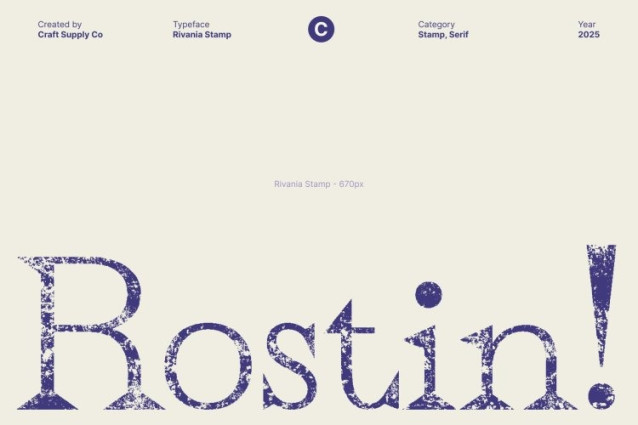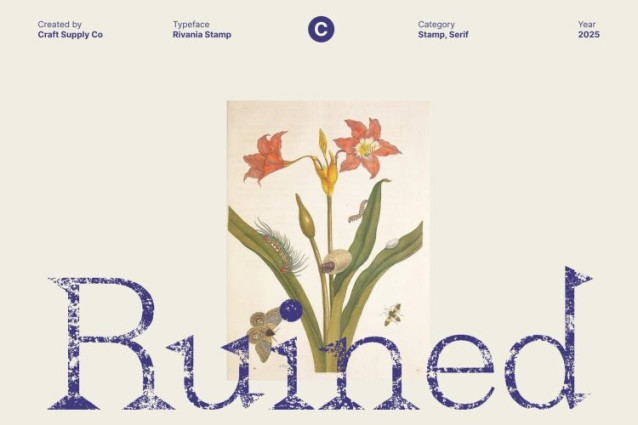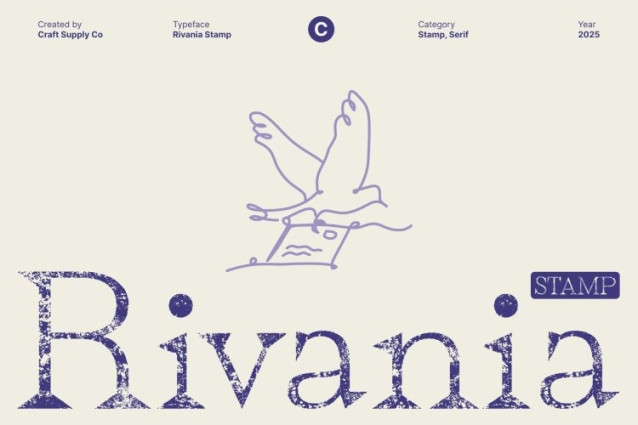
Rivania Stamp Font
Rivania Stamp Font This is an aesthetic serif font that blends classic elegance with the energy of today’s digital style. Designed to be instantly eye-catching, it reflects the visual language of modern online culture making it perfect for content creators, lifestyle brands, and anyone looking to elevate their visual identity.
Stylish Serif Forms for Social Media and Lifestyle Branding
Crafted with smooth curves and expressive shapes, thrives in visually driven spaces like TikTok, Instagram, and digital ads. Its aesthetic appeal makes it ideal for posts, quotes, product promos, and brand identities that need to feel stylish and approachable.
Stamp Texture for a Unique and Emotional Touch
Enhancing its trendy serif form, features a stamped texture that adds depth, warmth, and expressive character. This handcrafted effect transforms the clean serif into something more artistic and memorable. Each letter carries a subtle irregularity that enriches the overall aesthetic, giving your design a touch of personality and individuality.
Perfect for Visual-Driven Projects and Modern Branding
Whether you’re designing for lifestyle brands, fashion labels, personal branding, posters, or digital campaigns, brings out a unique blend of charm and creativity. Its combination of classic typography, modern trend cues, and textured detailing makes it versatile yet distinctive ideal for projects that want to feel authentic, expressive, and beautifully on-trend.